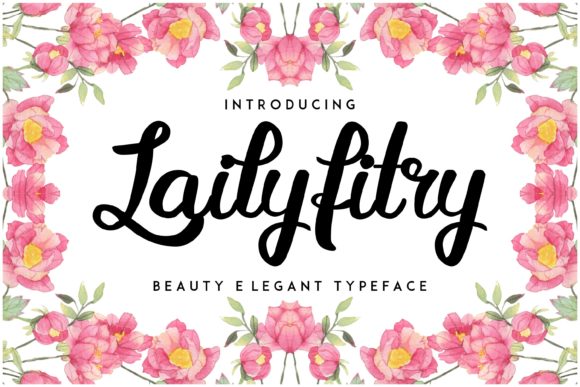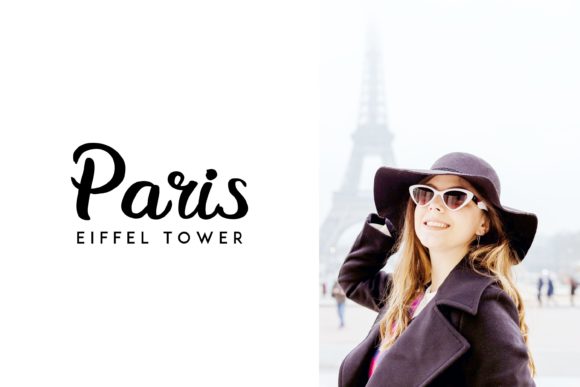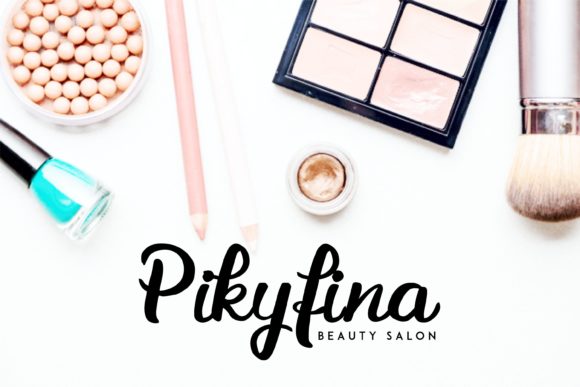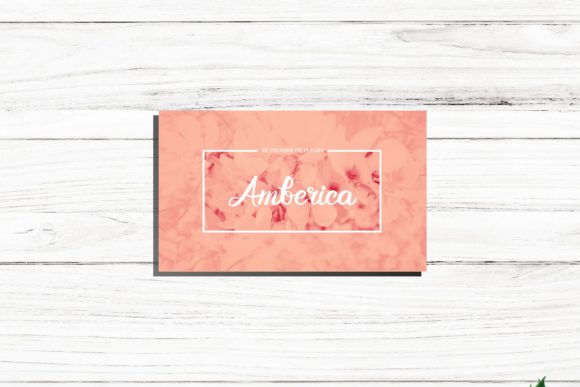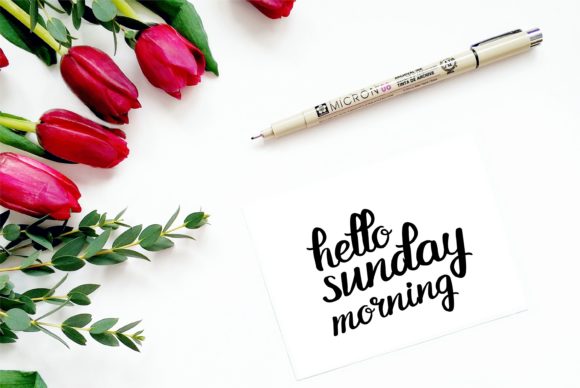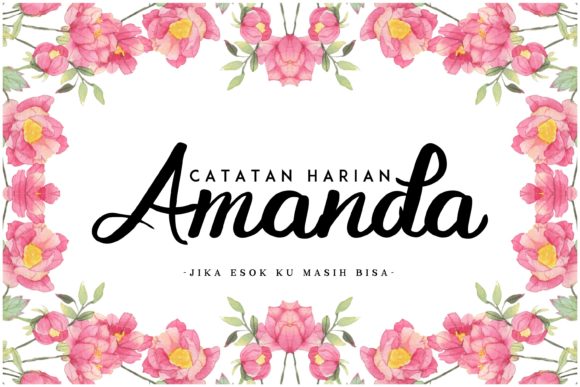
Lailyfitry Font
About Lailyfitry Font
The Lailyfitry is a beautiful and elegant font. The letters have an elegant feel and are based on real beautiful handwriting. It allows you to change type to an interesting and beautiful work of art.